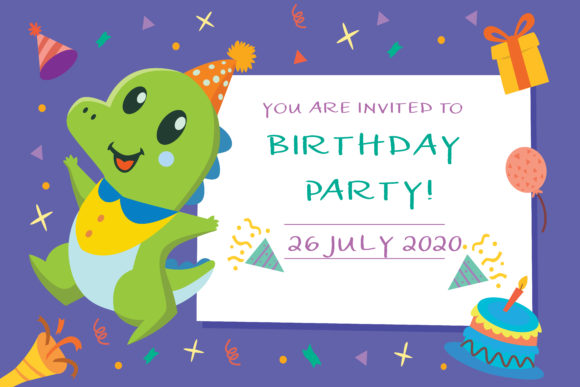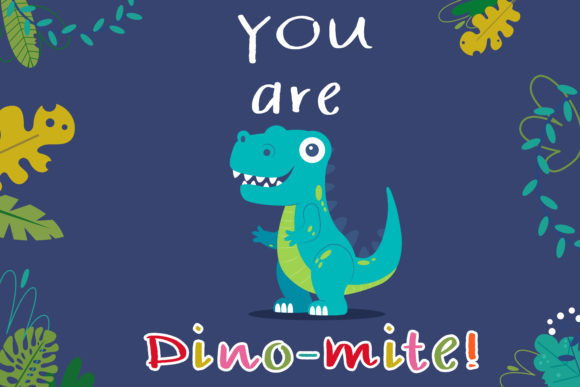
Kid Dinosaur Font
db-ku.com - Script & Handwritten -- Kid dinosaur embodies fun, quirkiness and authenticity. This enchanting handwritten font will turn any creative idea into a true standout.